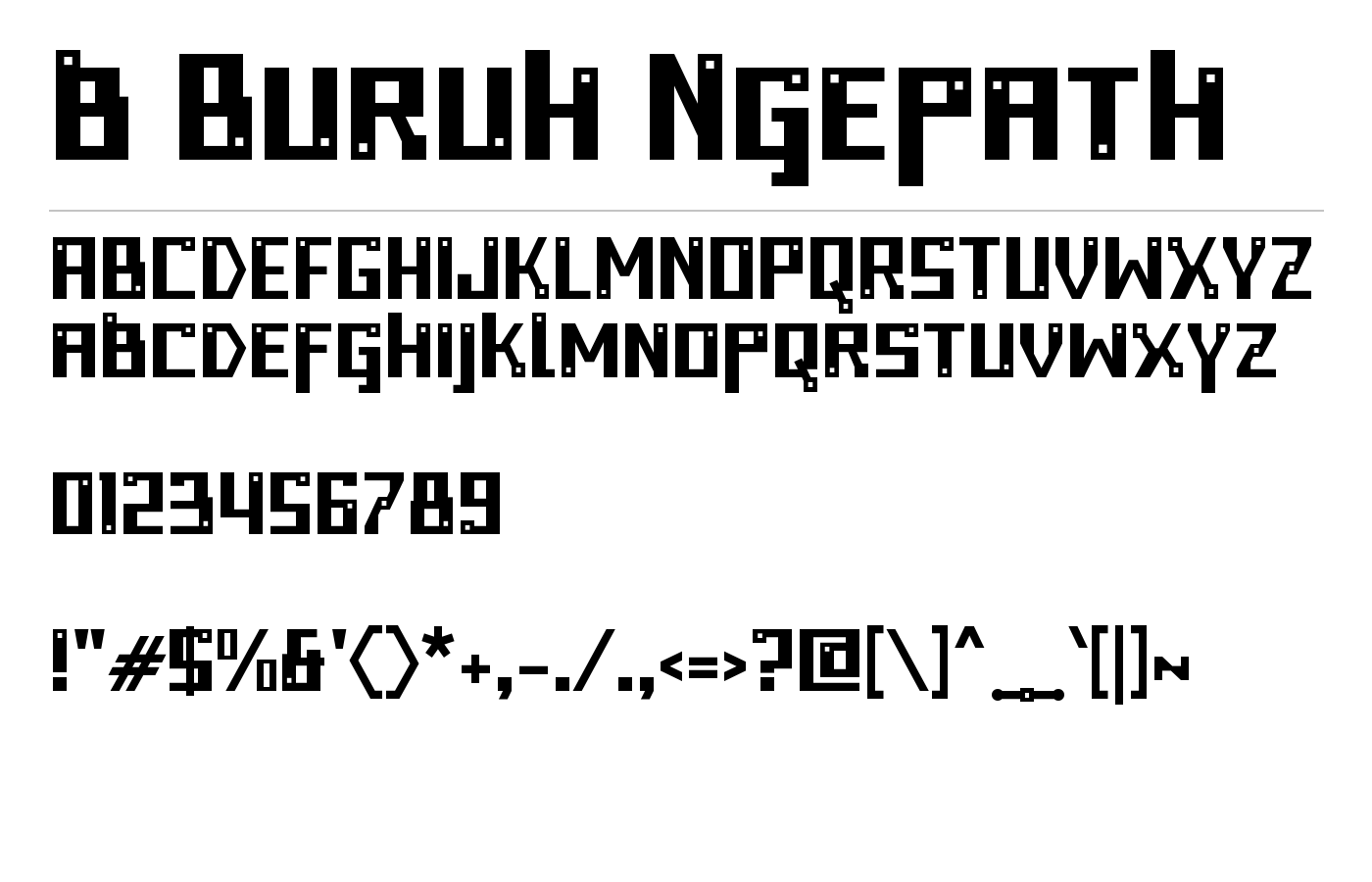
Buruh Ngepath is a bold, geometric sans serif font with a blocky, pixelated style that evokes a retro digital or video game aesthetic. Its uniform stroke weight, high x-height, and square shapes create a strong, structured feel, while quirky details like small cutouts add a playful, tech-inspired personality. This font works great for headlines, logos, and creative projects where a modern, edgy, or nostalgic digital vibe is desired.
b Buruh Ngepath Font
About b Buruh Ngepath Font